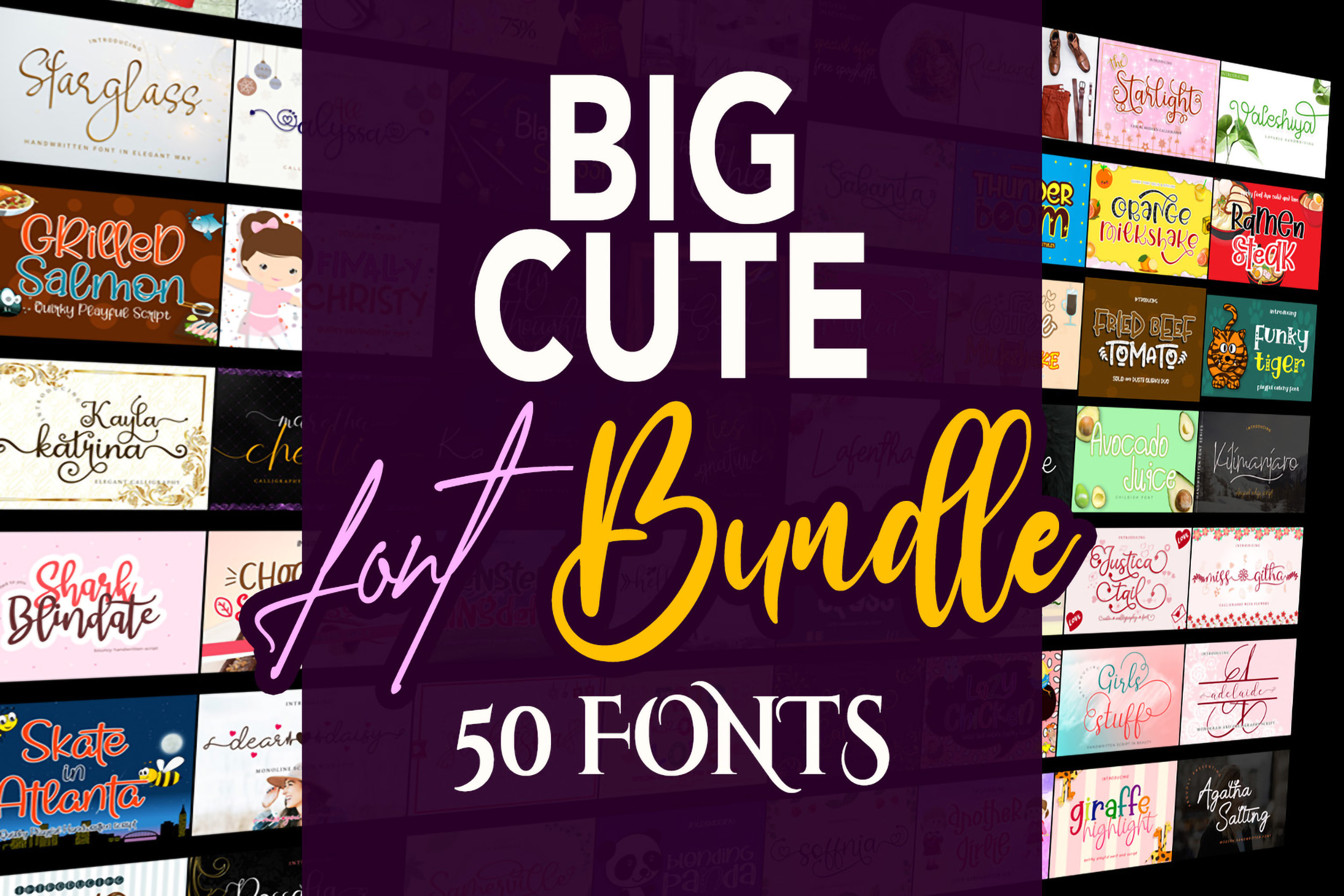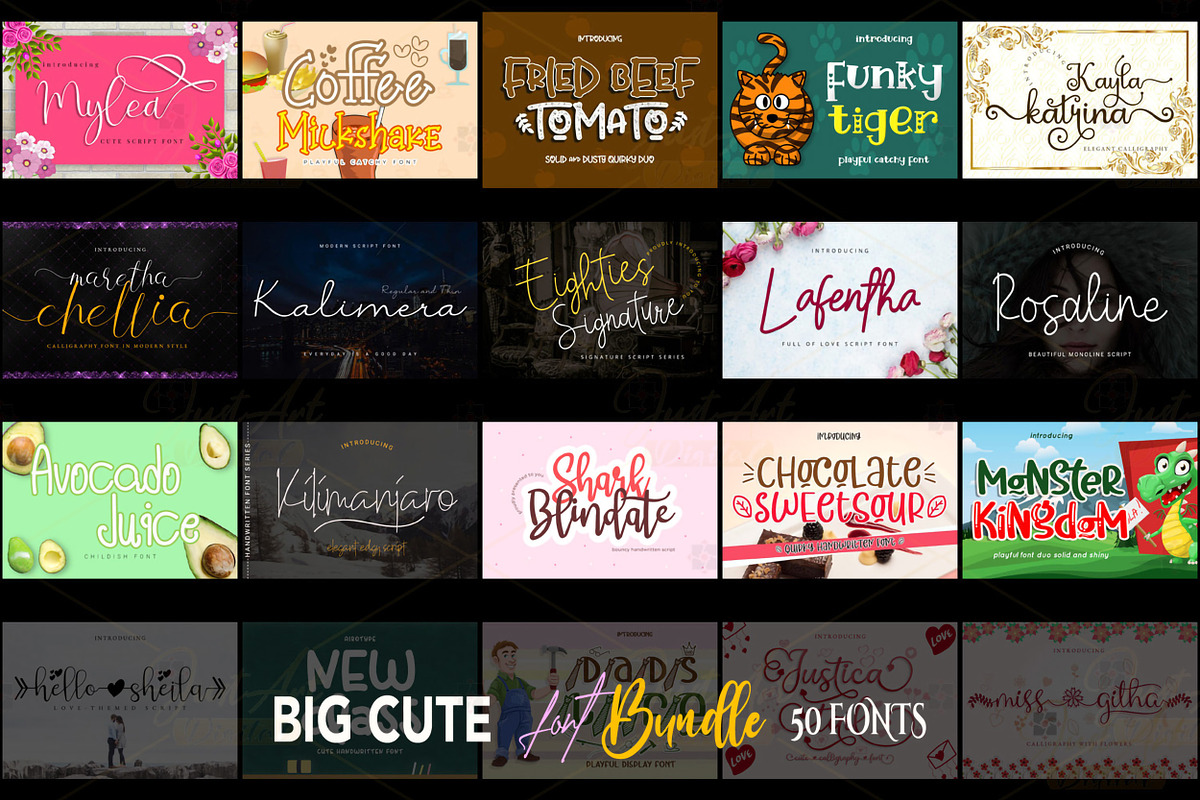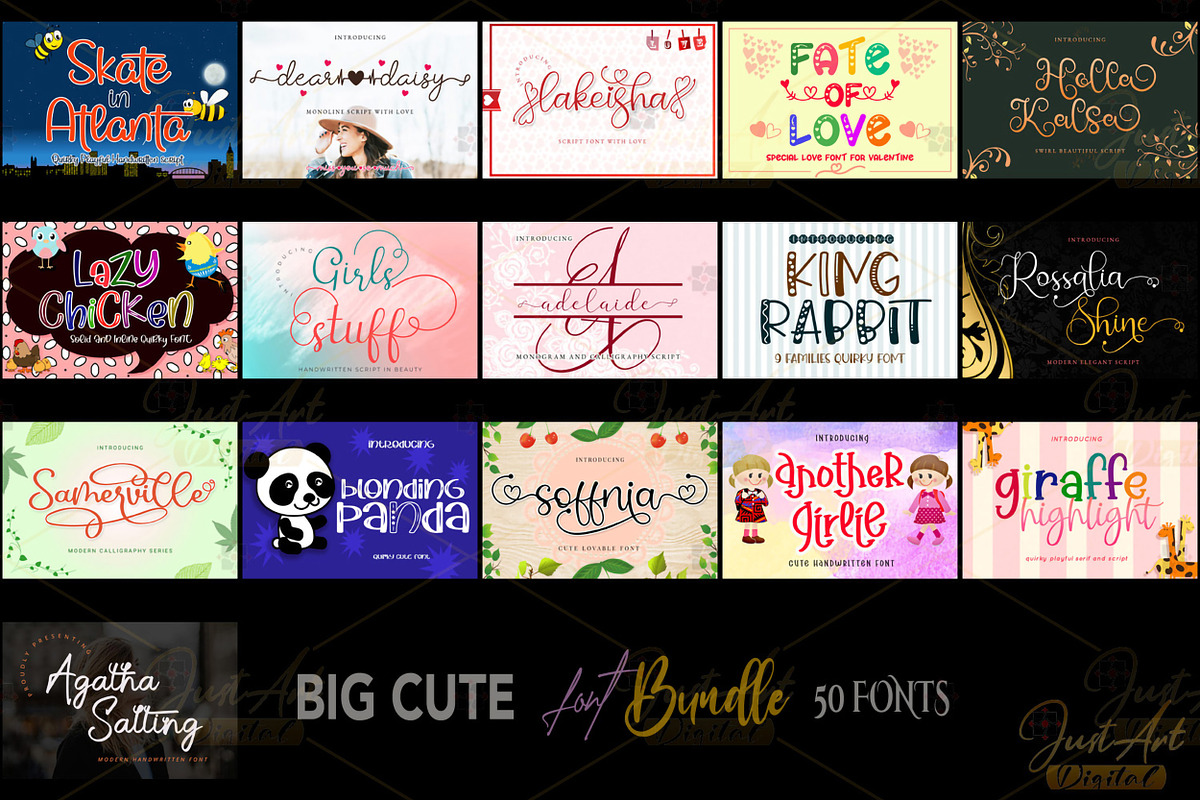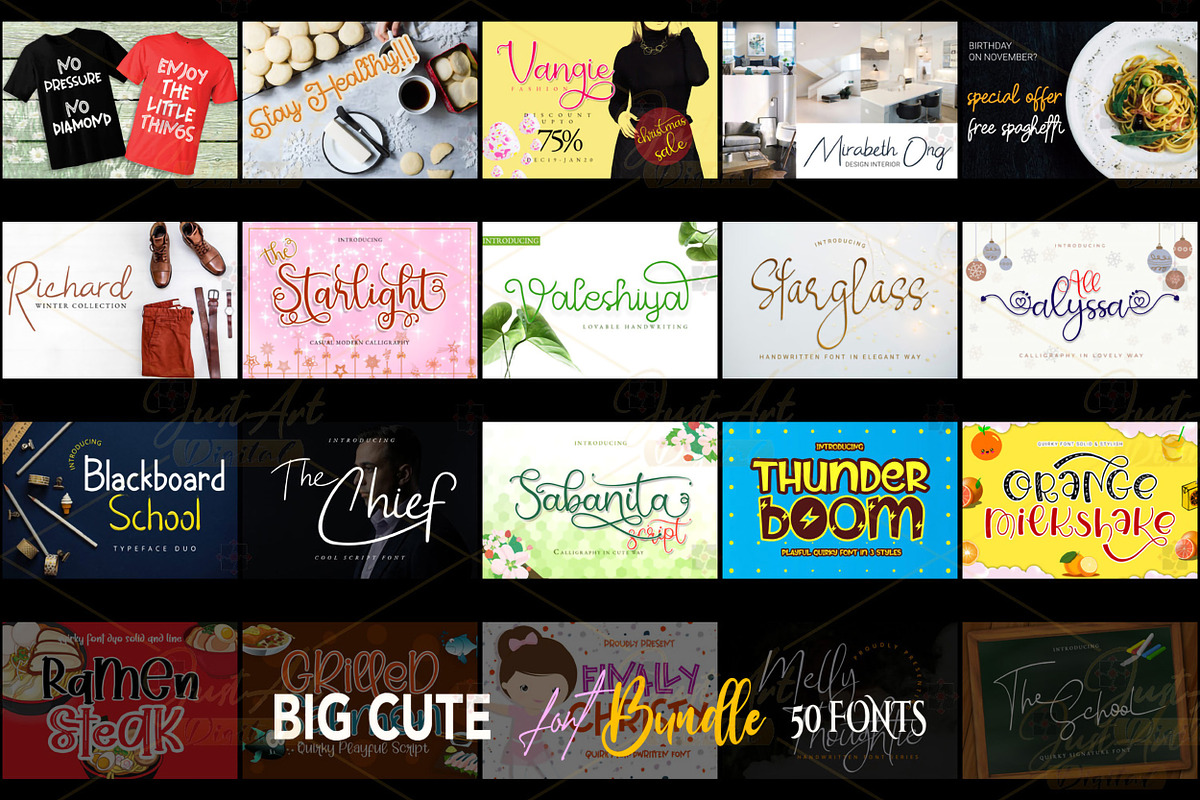
The Big Cute Fonts Bundle
"Big Cute Fonts Bundle: A Delightful Collection for Creative Projects
★ Overview of the Bundle
The Big Cute Fonts Bundle is an enchanting collection of 50 cute and lovely fonts, thoughtfully curated to bring joy and versatility to your creative endeavors. Featuring our bestselling fonts like Hello Sheila and Ramen Steak, this bundle is a treasure trove of typography tailored for a variety of crafting needs.
▲ Key Features:
Top-Selling Fonts: Includes beloved fonts like Hello Sheila and Ramen Steak, known for their charm and high-quality design.
Versatile Applications: Perfect for both digital and physical crafting projects.
Creative Potential: Designed to inspire and enhance your artistic vision across a range of design styles.
☆ Perfect for Crafting Projects
The fonts in the Big Cute Fonts Bundle are designed to suit a wide array of crafting projects. Here are some of the most popular uses:
◆ T-Shirt Mockups
Create adorable and eye-catching designs for t-shirts with these playful and stylish fonts.
▶ Wedding Invitations
Add a touch of romance and charm to your wedding stationery with fonts that exude elegance and sweetness.
□ Playful Designs
Perfect for crafting cheerful and whimsical visuals for children’s projects or fun branding elements.
● Stickers and More
Elevate your sticker designs with fonts that bring personality and vibrancy to every creation.
♥ Why Choose This Bundle?
✅ Bestseller Collection
With fonts like Hello Sheila and Ramen Steak included, you’re guaranteed to have access to some of the most popular and well-loved designs available.
✅ Versatility at Its Best
Whether you’re designing for professional purposes or creating for fun, this bundle has you covered with fonts that adapt to various styles and needs.
The Big Cute Fonts Bundle is the ultimate collection for anyone looking to add charm and personality to their projects. From t-shirt mockups to wedding invitations and playful stickers, this bundle offers endless possibilities. Explore the delightful fonts and let your creativity shine with this essential collection of cute and lovely typography."